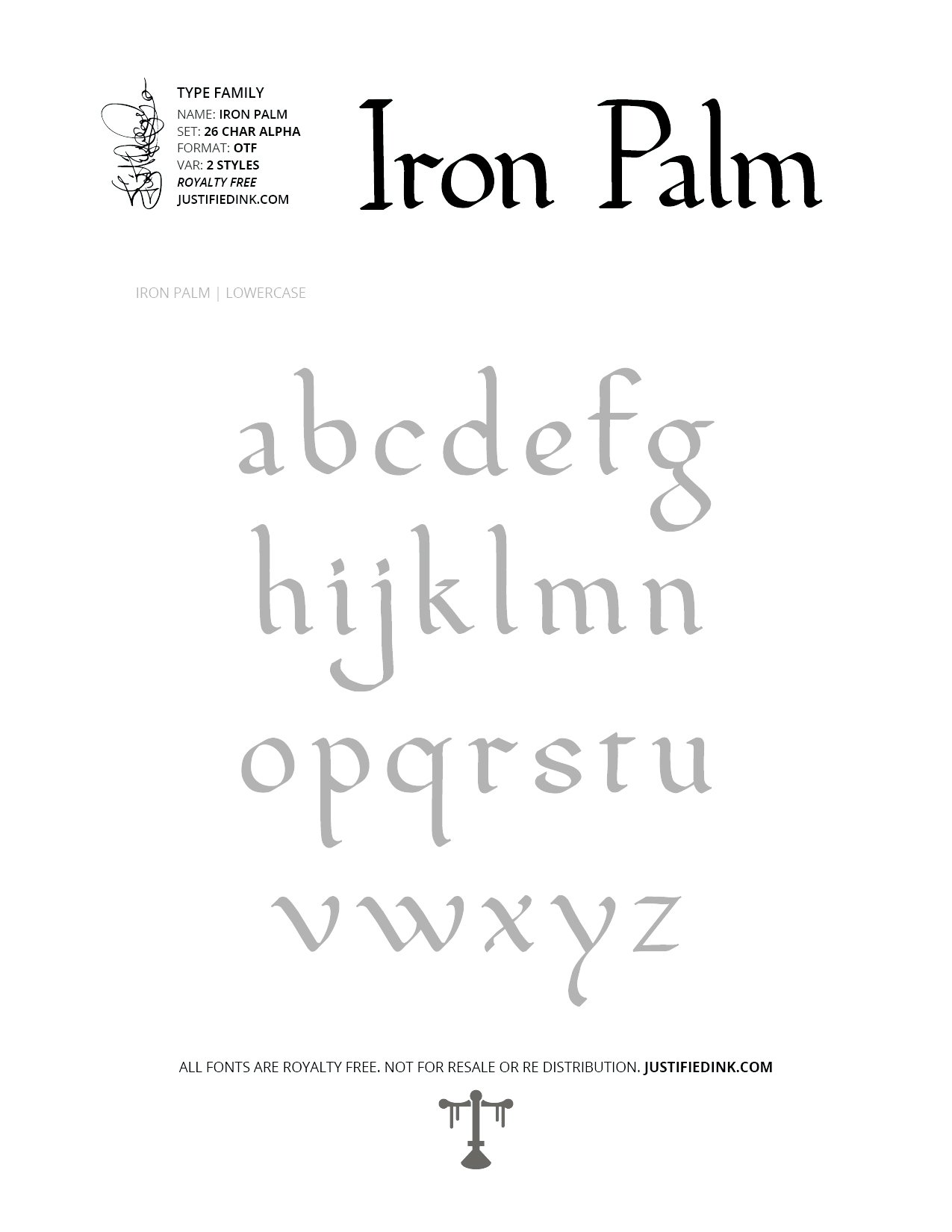
Iron Palm (2 styles) - Custom Font by Justified Ink
NAME: Iron Palm
Only through intense conditioning can we reach Iron Palm status. Strike with fierce intensity through proper technique. Applying these principals to lettering hammered out the most chiseled version of Foundational Hand.
The origin of the modern Foundational hand is based upon 9th and 10th-century manuscripts written in Carolingian script. By design - Iron Palm is a fluent, handstyle with fewer pen lifts than most historical scripts.
This font is part of the collection by Justified Ink, called Blackletter III. After 15+ years creating, I began to focus on building personal libraries of my work. Blackletter III is yet another amazing collection of 30 handmade fonts. Building off of the work done to create Blackletter II, this collection is specialized where it was created digitally. This features many classic styles such as gothic, fraktur, beneventan, and uncial. Additionally, this collection contains several other styles drawn from graffiti, hiphop, and indie type styles. It comes in a full set of 26 char alpha. Each font family has variations in styles and/or non-alpha chars.